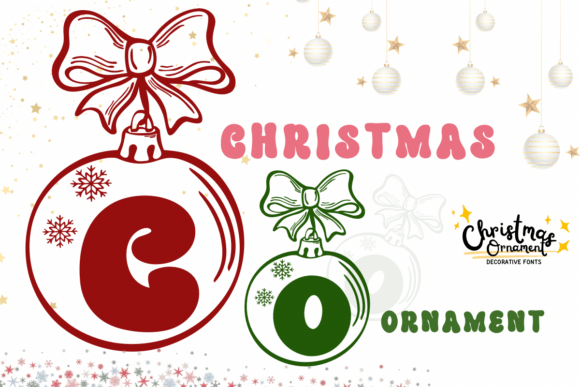
A Festive Touch to Your Creations: Unveiling the Christmas Ornament Font
Have you ever found yourself sipping hot cocoa, surrounded by twinkling lights, and feeling inspired to create something special? That’s exactly what happened to me last winter, when I stumbled upon the Christmas Ornament Font. Its whimsical, hand-drawn design immediately captured my heart and sparked a wave of creative ideas.
This decorative font is perfect for adding a festive touch to your notes, diaries, or greeting cards. But its versatility knows no bounds – it can also be used to design banners, content, mugs, cards, shirts, stationery, social media posts, and more! For designers, the Christmas Ornament Font is a valuable addition to their toolkit, offering a unique and eye-catching way to convey their message.
- Unique Characteristics: The font features intricate, hand-drawn designs, with a mix of traditional and modern elements, making it perfect for holiday-themed designs, invitations, and packaging
Designer Review: Christmas Ornament Font
Overall, I think the Christmas Ornament Font is a fun and festive addition to any holiday project. ✨ The font is playful and attention-grabbing, making it perfect for use on social media, greeting cards, or any other design where you want to add a bit of holiday cheer.
- The whimsical, hand-drawn feel of the letters ✨
- The variety of ornament shapes and designs available ✨
- The flexibility of the font, which can be used for a range of holiday-themed projects ✨
- The font may be too ornate for some projects, and could be overwhelming if used too extensively ⚠️
- The font may not be suitable for use in situations where a more straightforward, traditional font is required ⚠️
Overall, I think the Christmas Ornament Font is a fun and creative option for holiday designs. While it may have some limitations, it’s definitely worth considering for projects where you want to add a bit of festive flair.